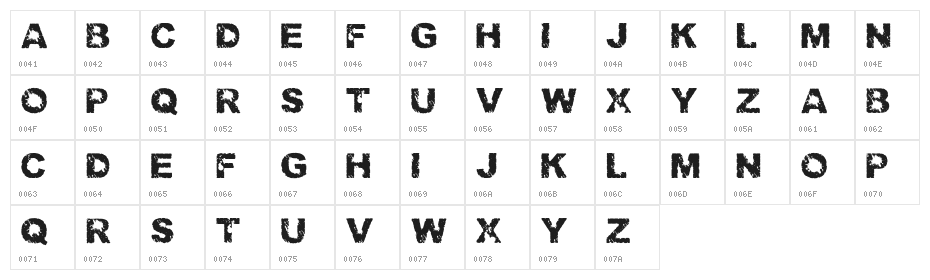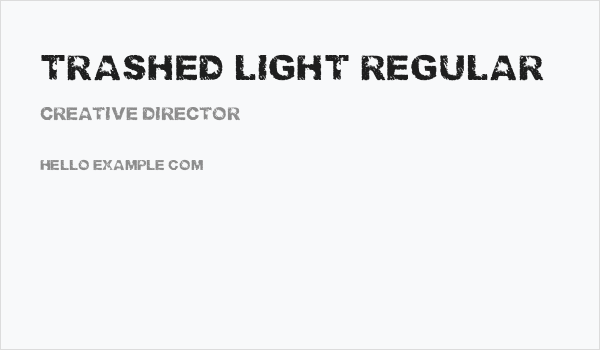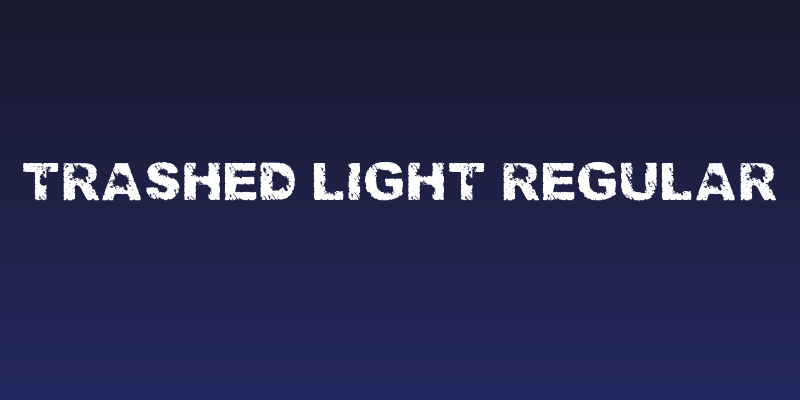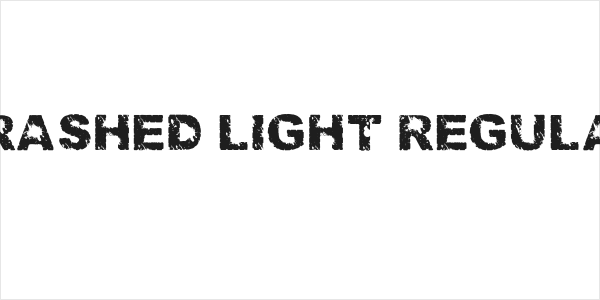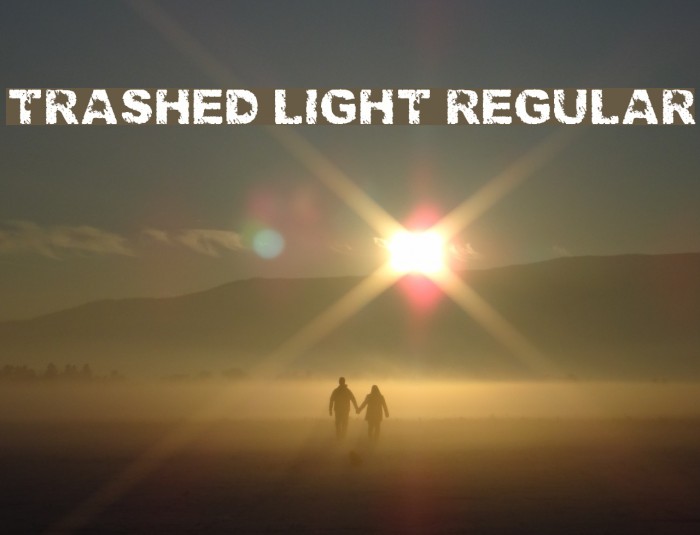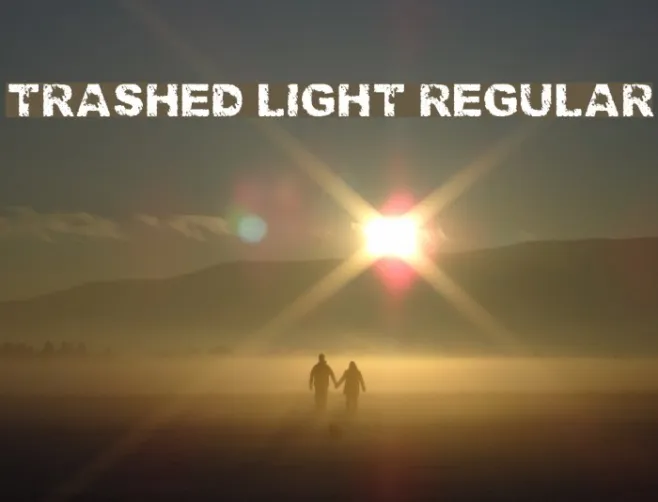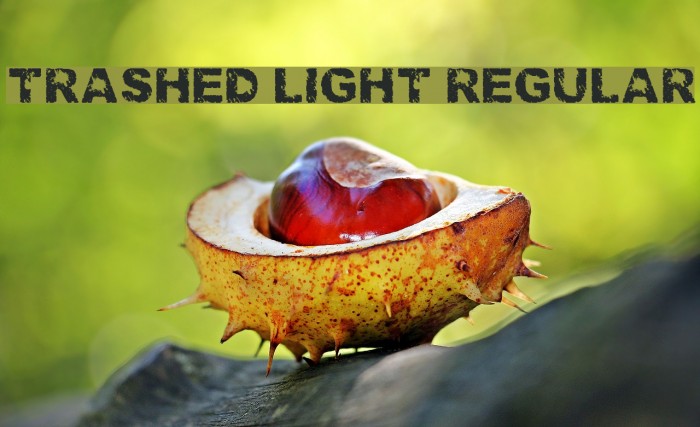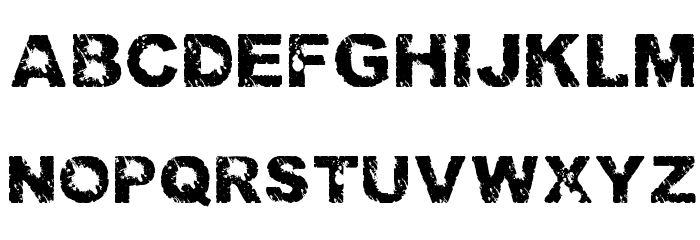
Trashed light Regular Font
Trashed light Regular Description
This font features a distressed, grunge aesthetic with a bold and rugged appearance. The characters are heavily textured, giving them a worn and weathered look, reminiscent of eroded or decayed surfaces. The uppercase letters are consistent in height and width, providing a uniform appearance despite the irregular texture. This style is ideal for projects that require a raw, edgy feel, such as music album covers, posters, or urban-themed designs. The font's unique texture makes it stand out, adding a layer of visual interest and depth.
| Overall Style | Grunge, Edgy |
| Proposed Projects | Ideal for album covers, posters, urban-themed designs, and edgy branding. |